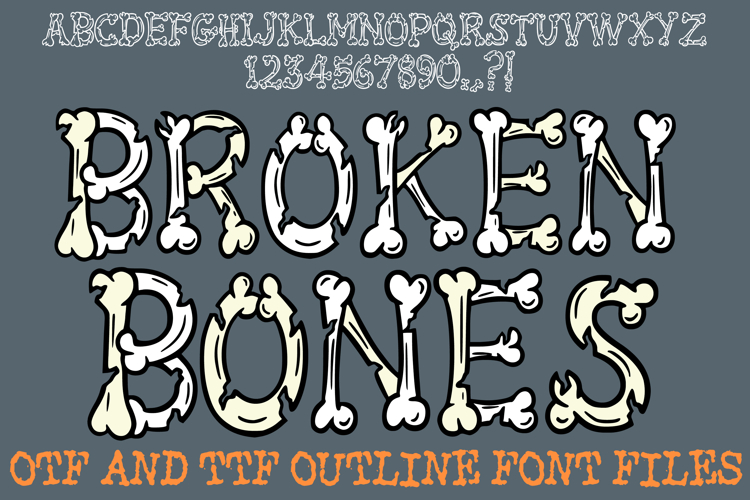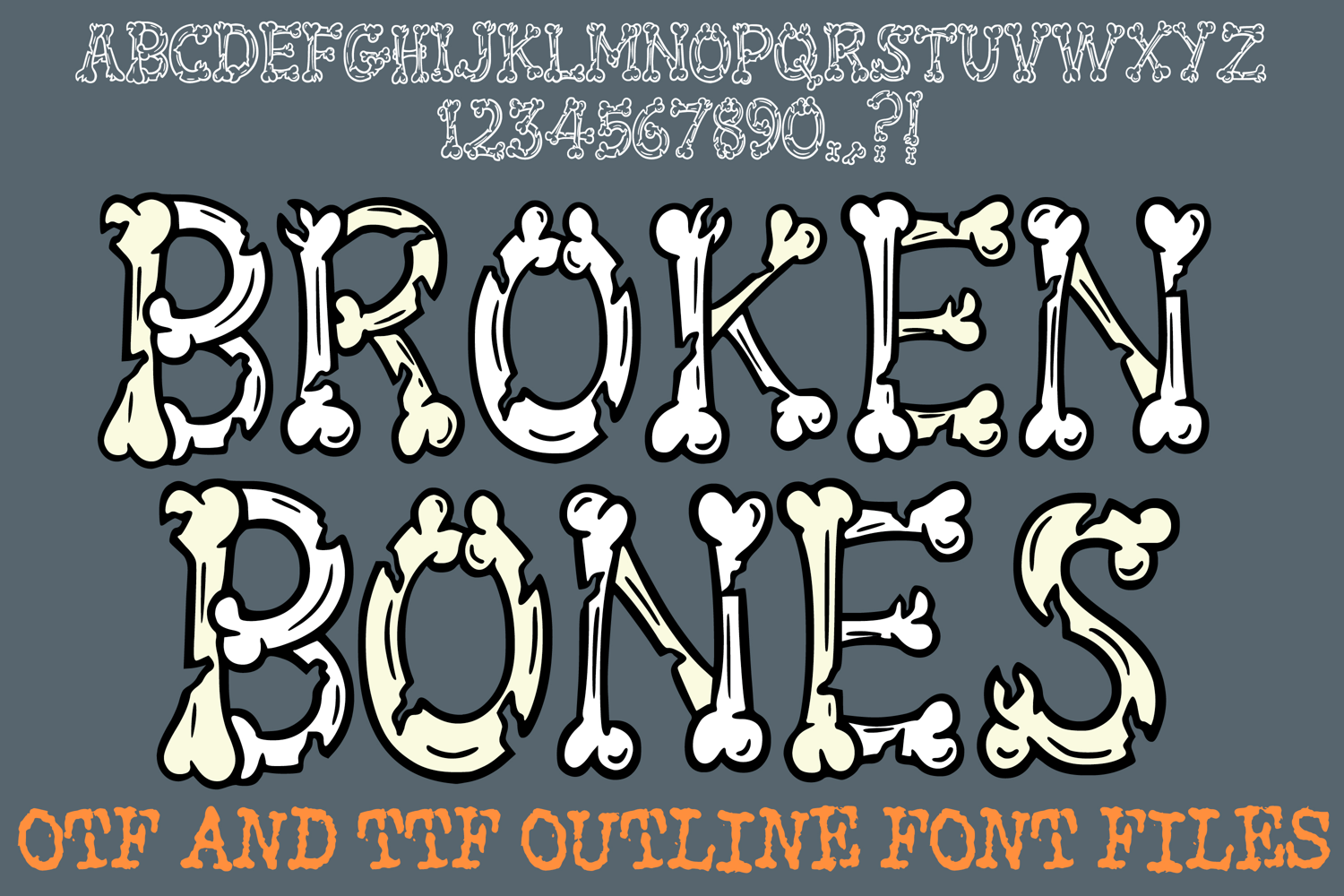
Broken Bones Lettering Font Halloween Skeleton ABC OTF Type
The Halloween Bones Font is a playful, hand-drawn display typeface that turns every character into a skeletal masterpiece. Each letter (A–Z), number (0–9), and punctuation mark is meticulously sculpted from interlocking femur and tibia shapes, creating a "bouncy" anatomical aesthetic that is perfect for the spooky season.
Designed for maximum versatility, this font balances a "bubbly" cartoon silhouette with a clean, high-contrast outline. It’s the ultimate tool for Halloween branding, trick-or-treat apparel, and creepy-cute party decor. Whether you are designing sublimation T-shirts, Cricut window decals, or spooky social media headers, the Halloween Bones Font adds a sophisticated yet whimsical "rattle" to your typography.